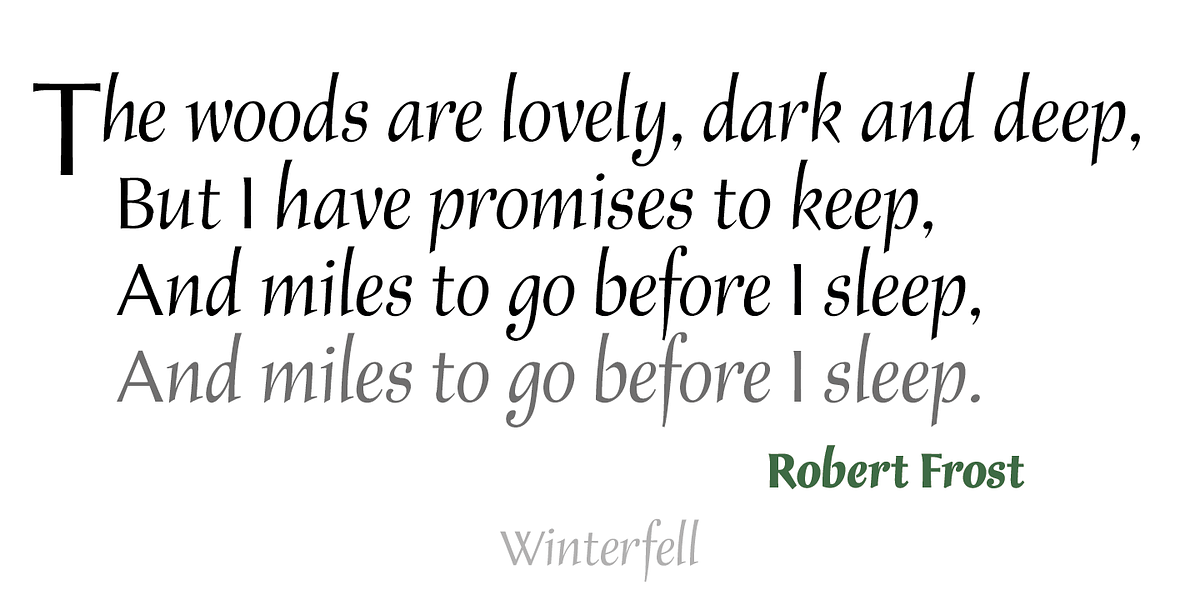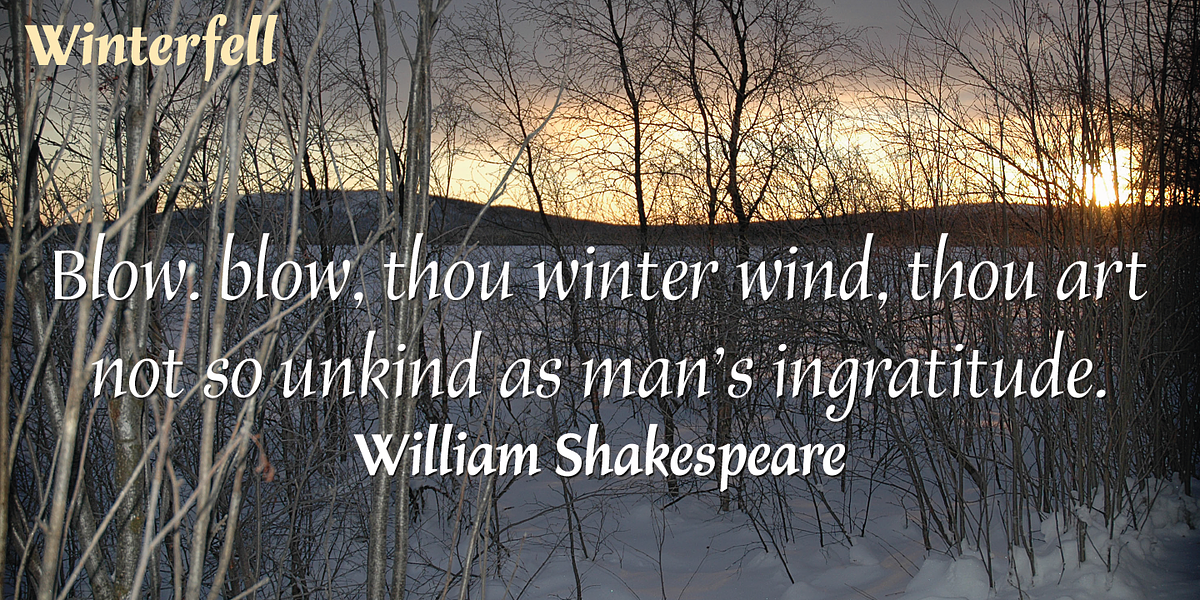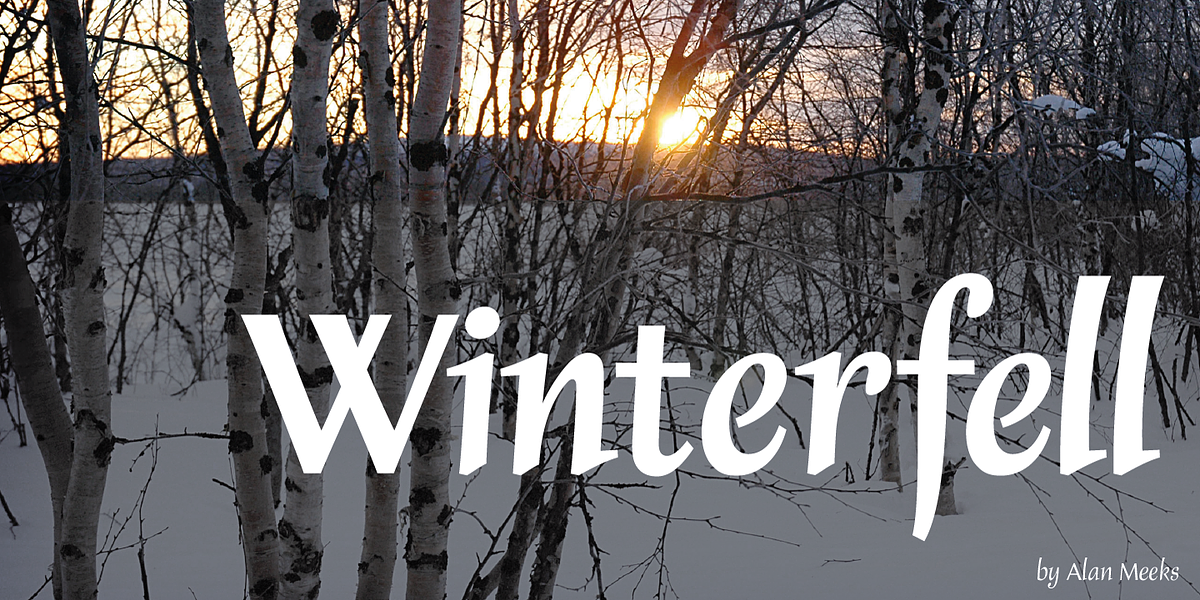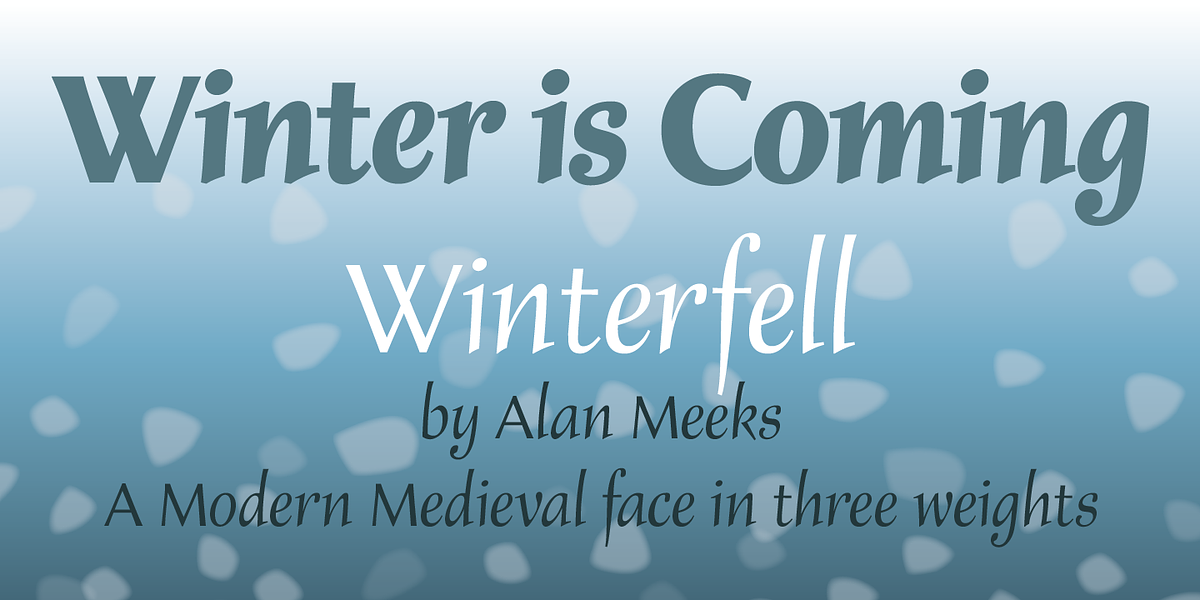
Winterfell
Winterfell is a calligraphic serif typeface that blends Roman caps with italic lowercase characters, giving it a unique and modern medieval feel. The flared serifs add a touch of elegance, making it suitable for display purposes and branding.